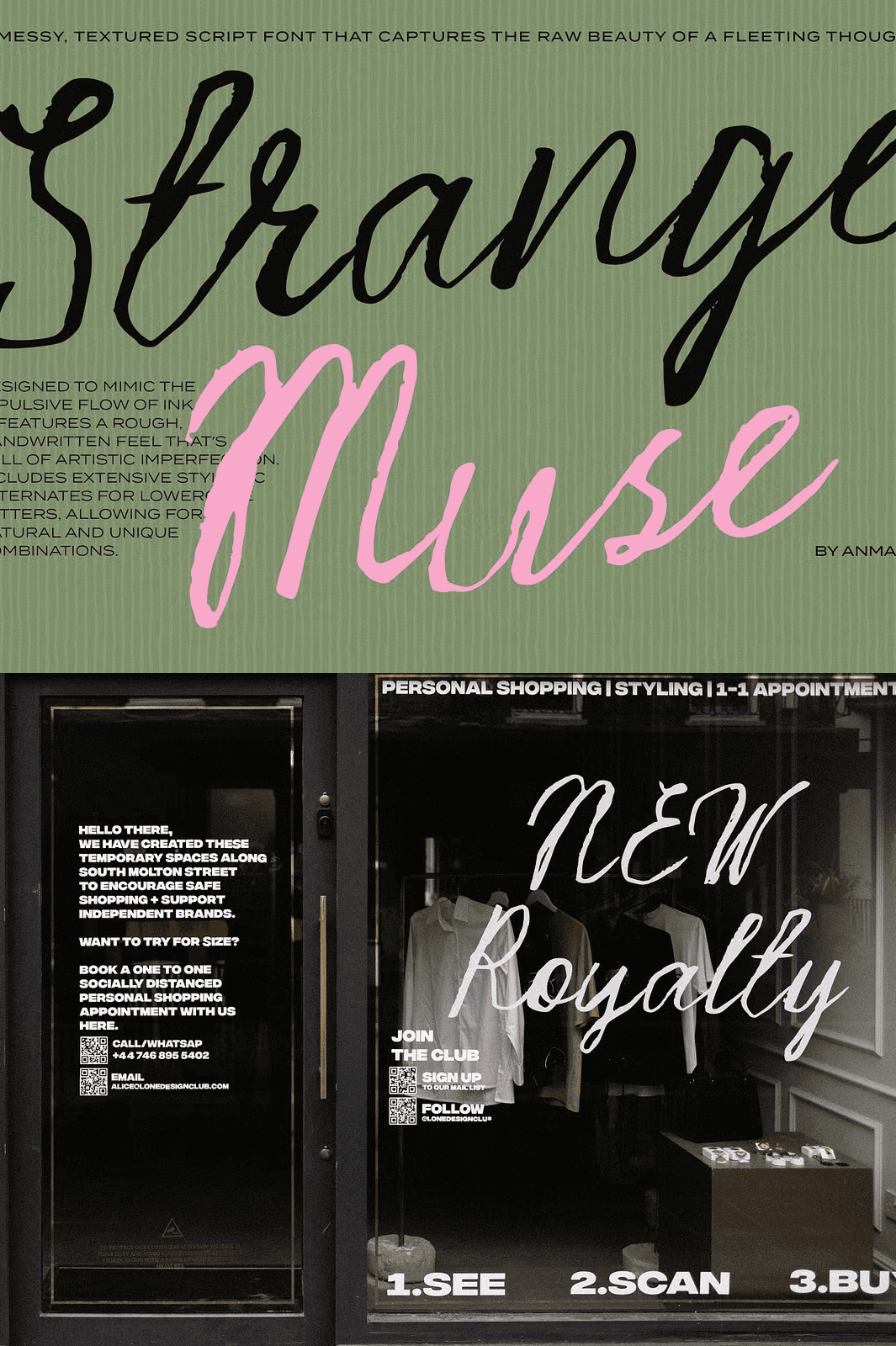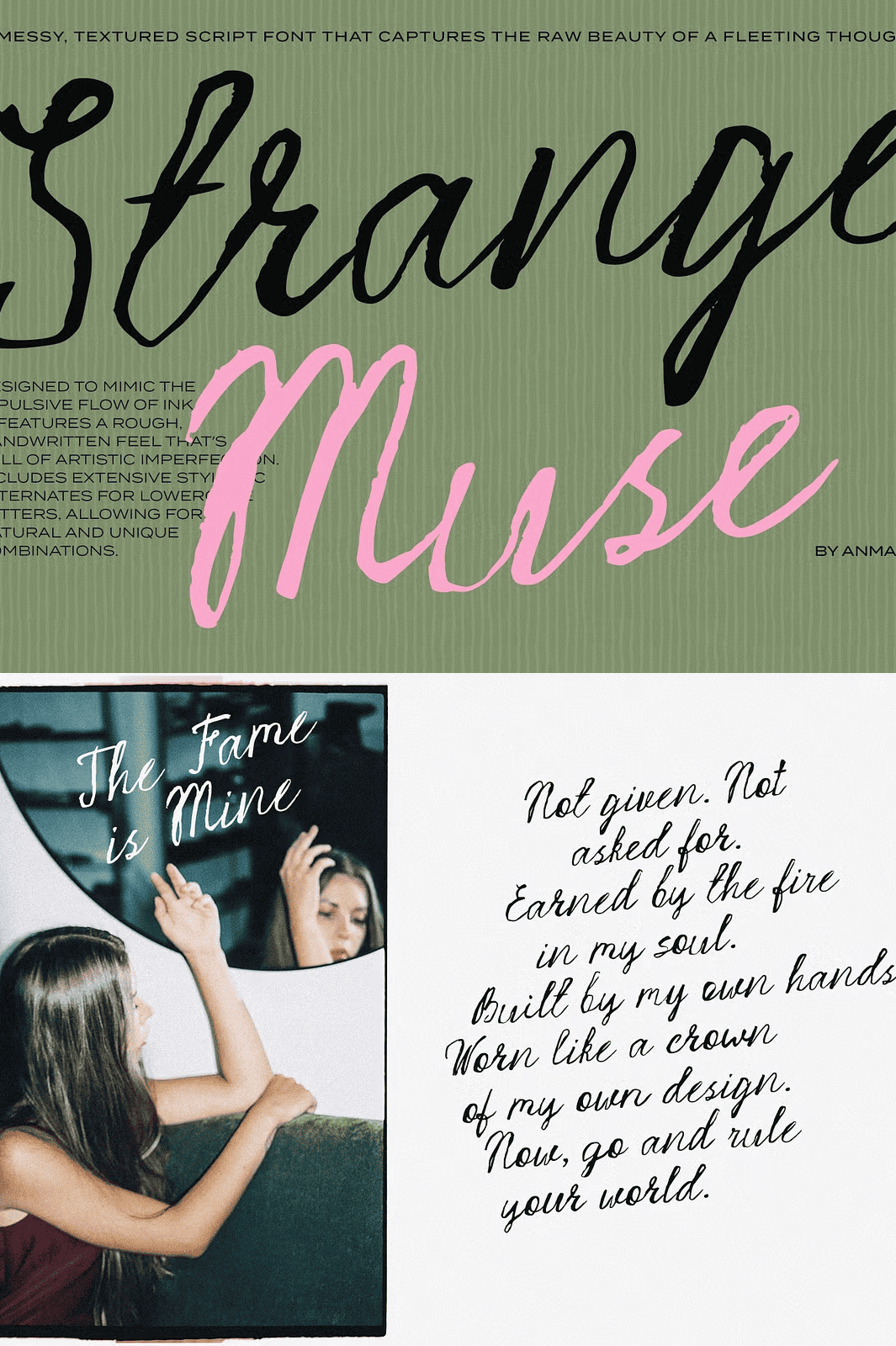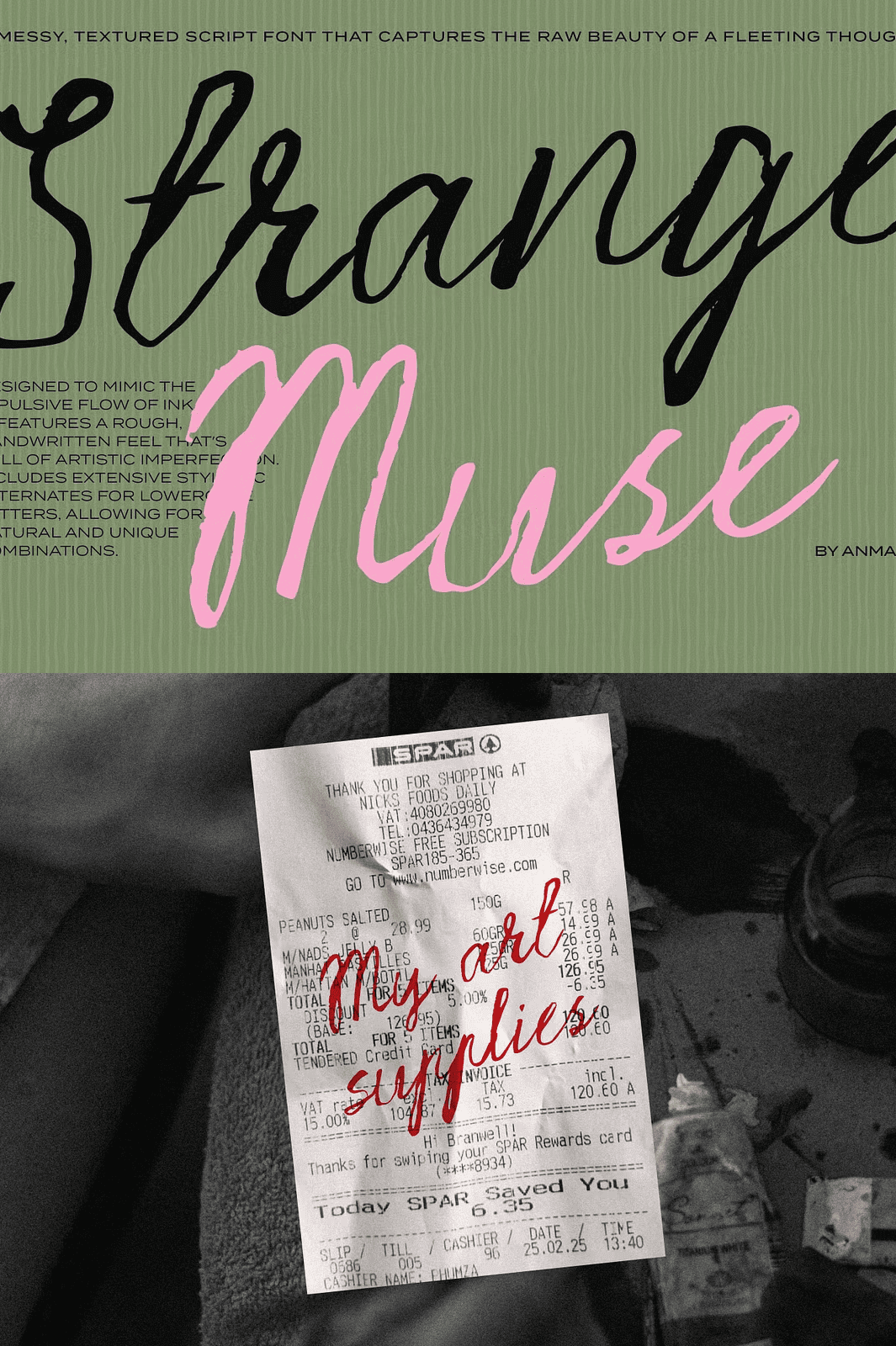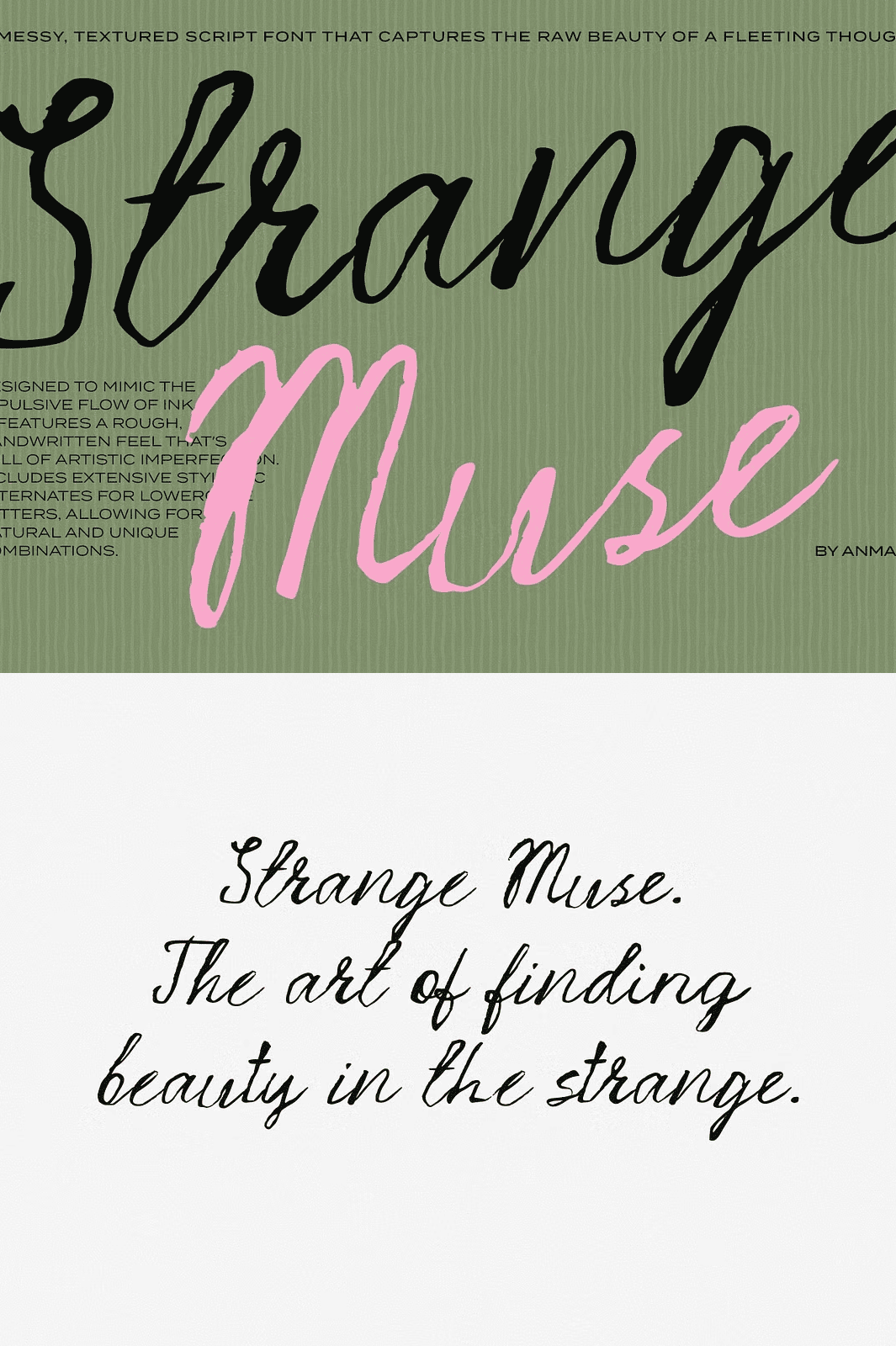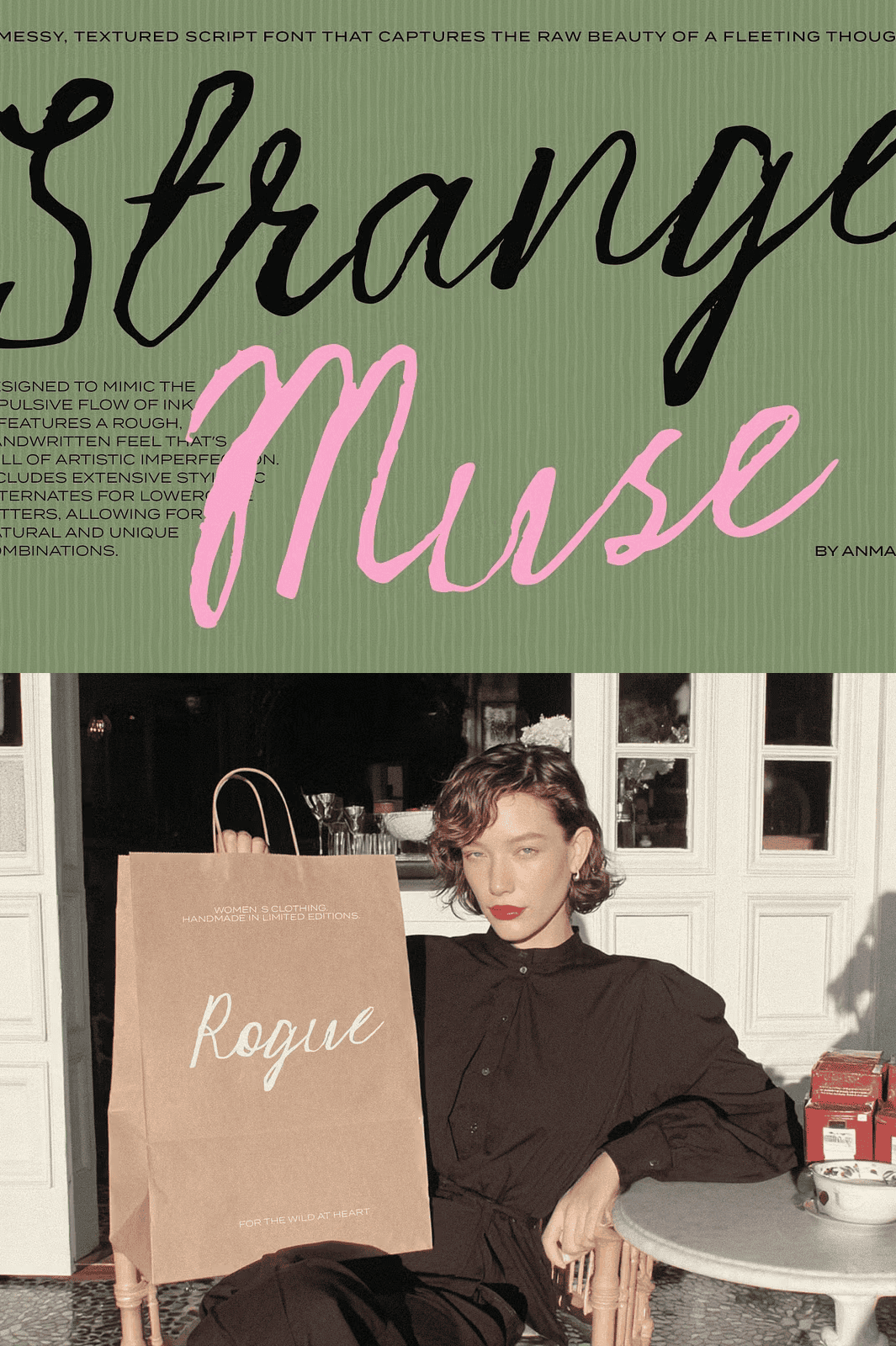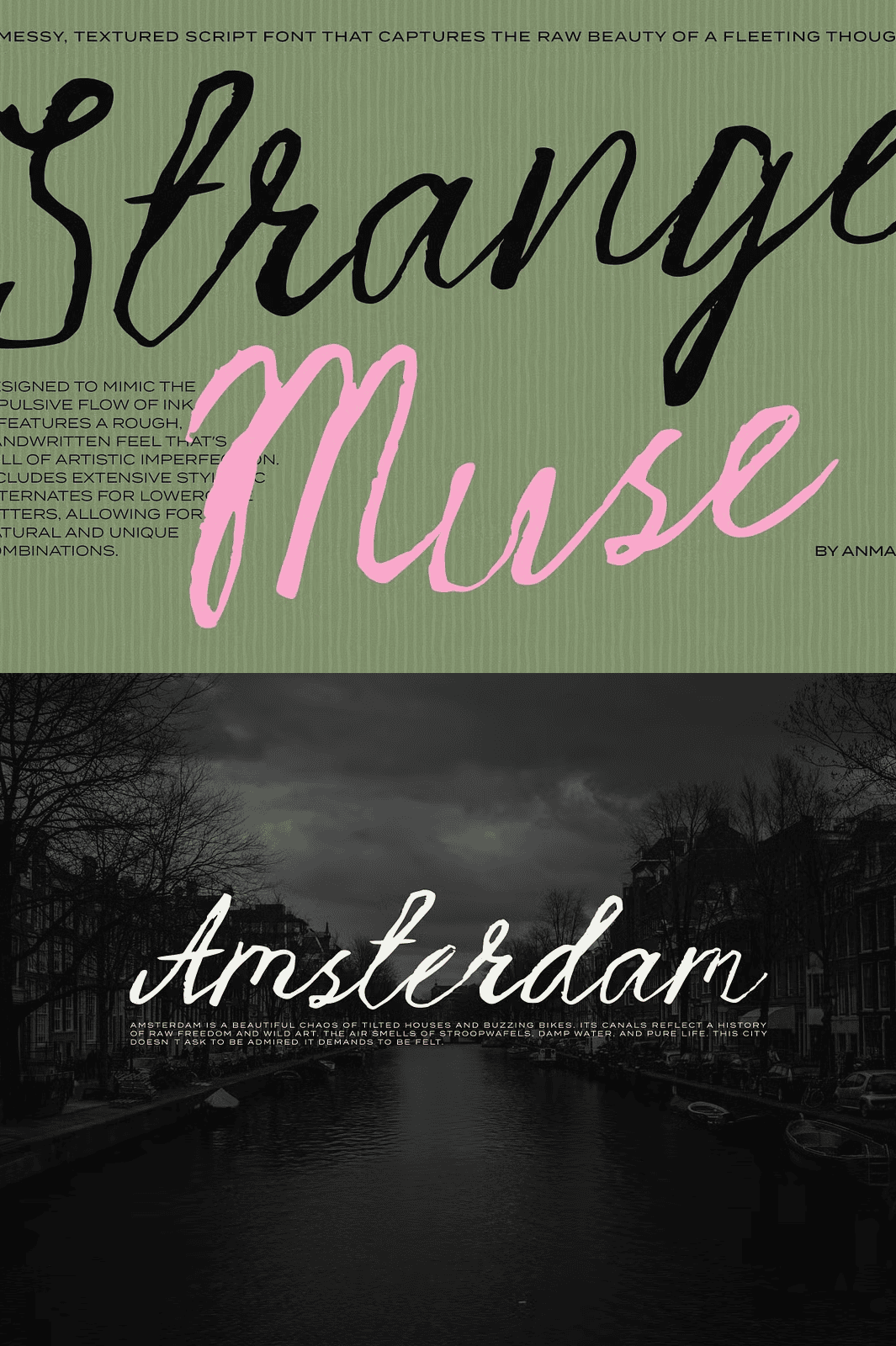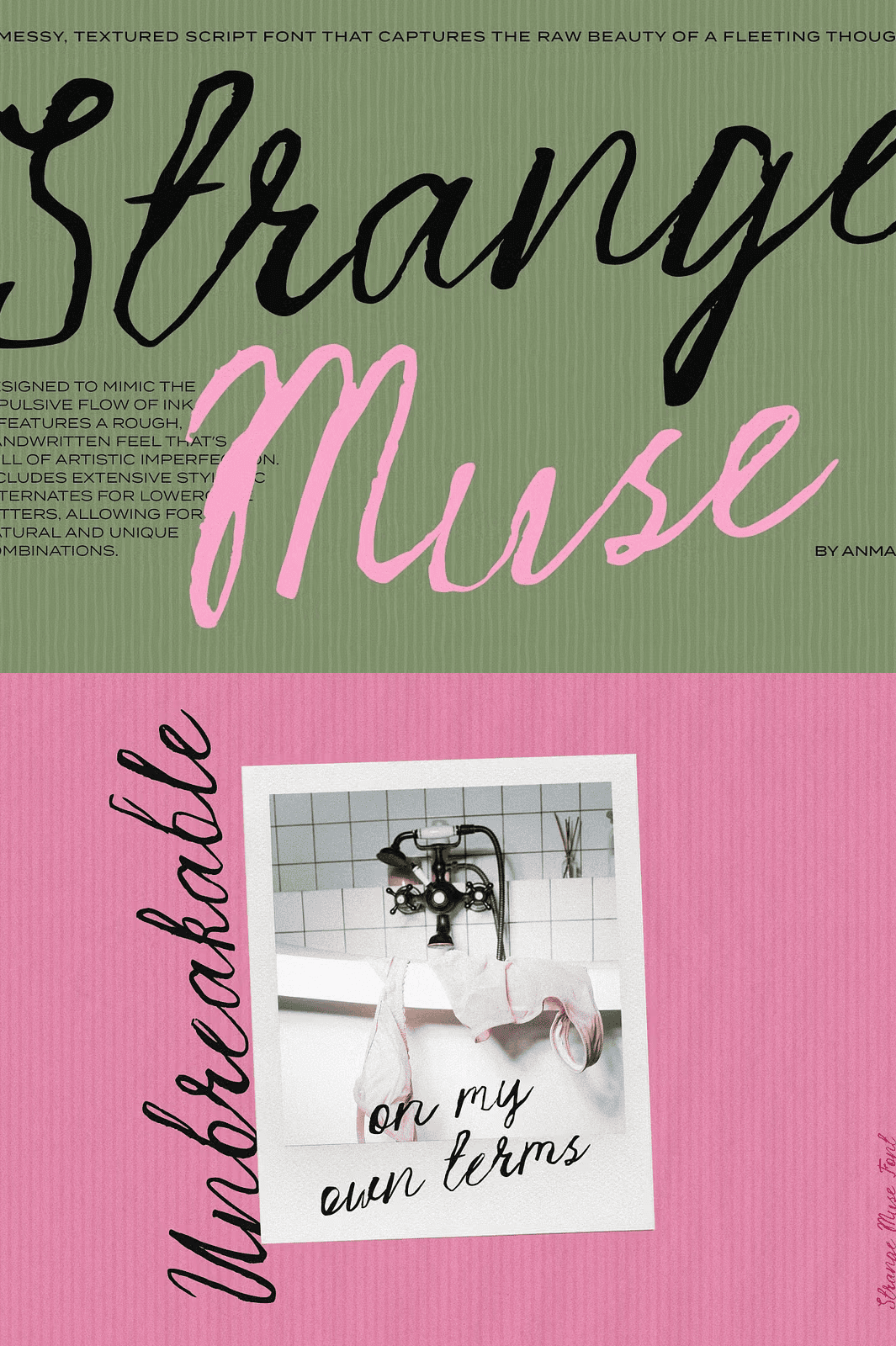
Embrace the Chaos: A Font Made for Authentic Expression
Introducing **Strange Muse**, a fiercely expressive, inky, and deliberately messy handwritten script font designed to mimic the unpredictable energy of genuine spontaneous handwriting. This isn’t a clean, polished typeface — it’s raw, imperfect, and bursting with emotional depth. Every stroke feels alive, every letterform carries a sense of urgency and soul, making Strange Muse the perfect choice for creative projects that demand personality over perfection.
This font captures the beauty of human imperfection. Its rough edges, irregular line weights, and uneven flow evoke the feeling of ink spilled on paper, a sketch made in a fleeting moment of inspiration. Strange Muse doesn’t just convey words — it communicates emotion, character, and artistic honesty.
Enhance Your Design with Stylistic Alternates
Take creative control with built-in **stylistic alternates** for lowercase letters. These alternates allow you to mix and match forms freely, helping you build a unique, hand-drawn appearance that feels natural and never repetitive. Whether you’re creating a single word or an entire paragraph, Strange Muse lets you shape the rhythm and flow of your text with precision and flair.
Use these alternatives to break visual monotony, emphasize key words, or simply give your design a handcrafted touch that machine-made fonts simply can’t replicate.
Perfect for High-Impact, Feminine Creative Projects
Strange Muse is engineered for bold storytelling and visual drama. Use it to elevate your work across a wide range of design applications:
– **Logo design** that stands out with a personal, artistic touch
– **Wedding invitations and stationery** that radiate warm, heartfelt charm
– **Fashion branding and label designs** with a rebellious, avant-garde edge
– **Social media graphics and quote posts** that stop the scroll with authenticity
– **Posters and event flyers** that command attention with expressive typography
– **Packaging and product design** where authenticity and brand identity matter
This is not a font for minimalism. It’s for creators who want their projects to feel *real* — unfiltered, emotional, and deeply human.
Pro Tips for Designers Using Strange Muse
– Pair Strange Muse with clean, modern sans-serif fonts to create a striking contrast between raw emotion and calm structure.
– Use the alternate characters strategically to avoid repetition and add dynamic rhythm in long texts.
– Apply subtle drop shadows or ink bleeding effects in design software to enhance the messy, inky feel.
– Use it sparingly in large blocks of text — it shines most when used for headlines, quotes, or short impactful phrases.
Stop relying on sterile, formulaic fonts. Step into the messy beauty of genuine expression. **Strange Muse** gives you a typographic voice that feels human — full of flaws, passion, and soul.